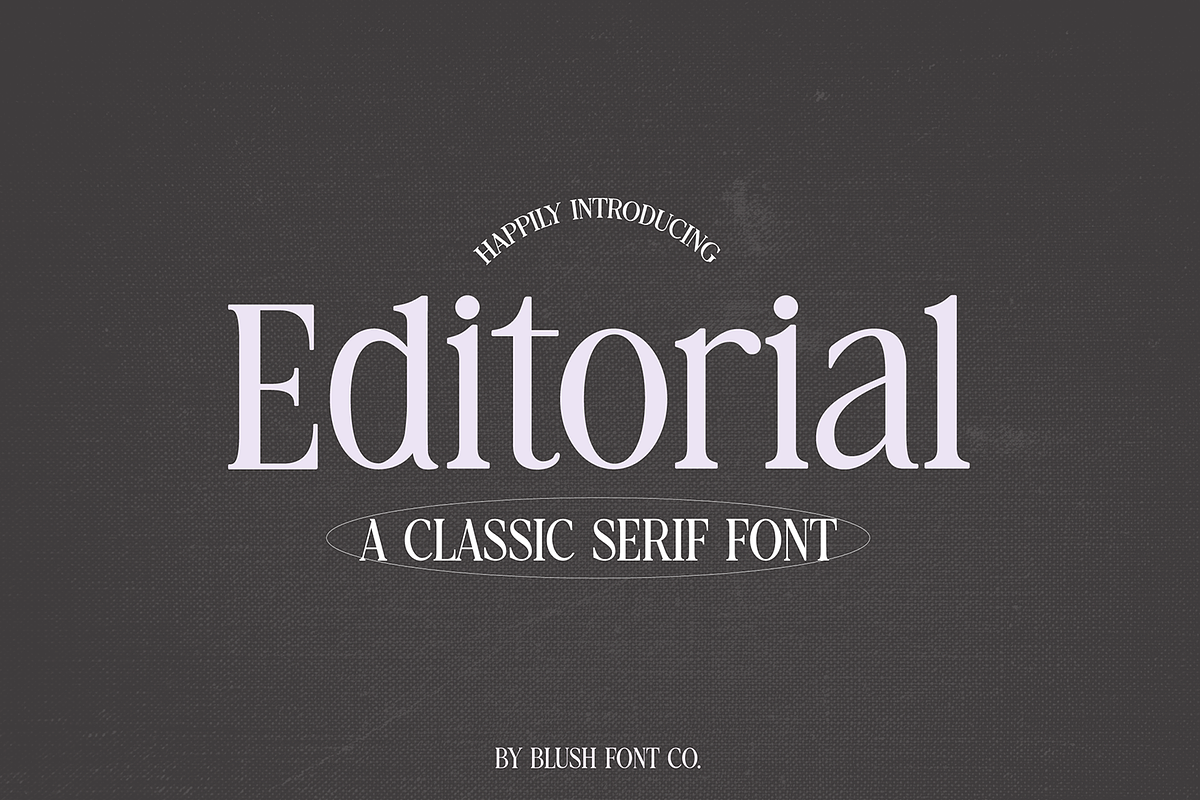
EDITORIAL a Classic Serif Font Free Download
EDITORIAL Classic Serif Font Free Download
EDITORIAL Classic Serif Font Free Download is a refined and timeless typeface designed for elegant, high-end projects. Inspired by traditional editorial typography, this font features clean lines, graceful serifs, and exceptional readability—making it perfect for magazines, books, branding, websites, and luxury packaging.
Whether you're designing a fashion spread or a polished brand identity, EDITORIAL delivers classic beauty with modern precision. It’s an essential serif font for designers who value structure, balance, and editorial excellence in their typography.